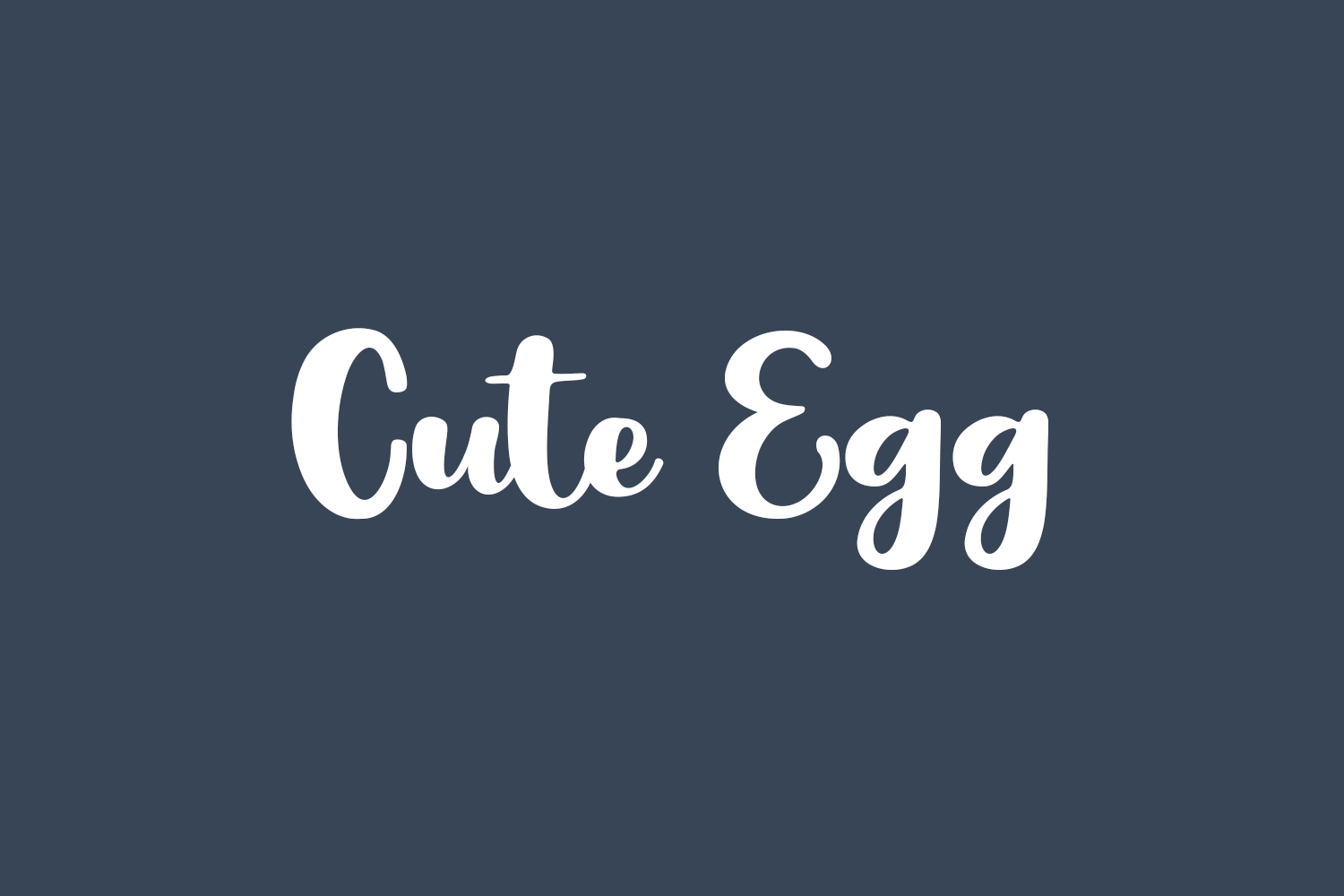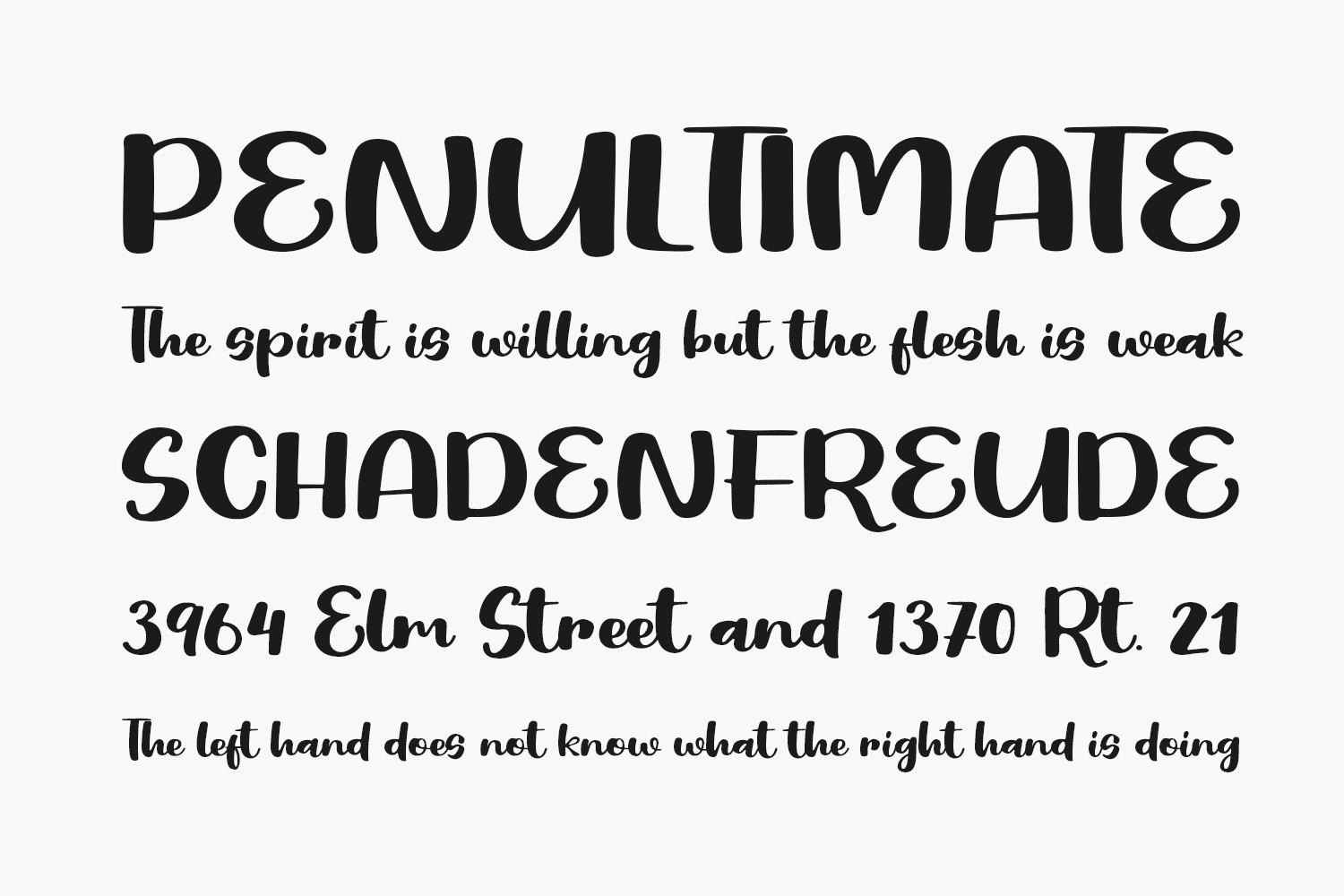
Cute Egg Free Font is fun and round lettered script font. Whether you use it for cartoon-related designs, children’s games, or just any creation that requires a playful touch, this font is the perfect choice for your designs. Cute Egg Free Font was designed by Khurasan and is free for personal use only. Please purchase the full version for commercial use.